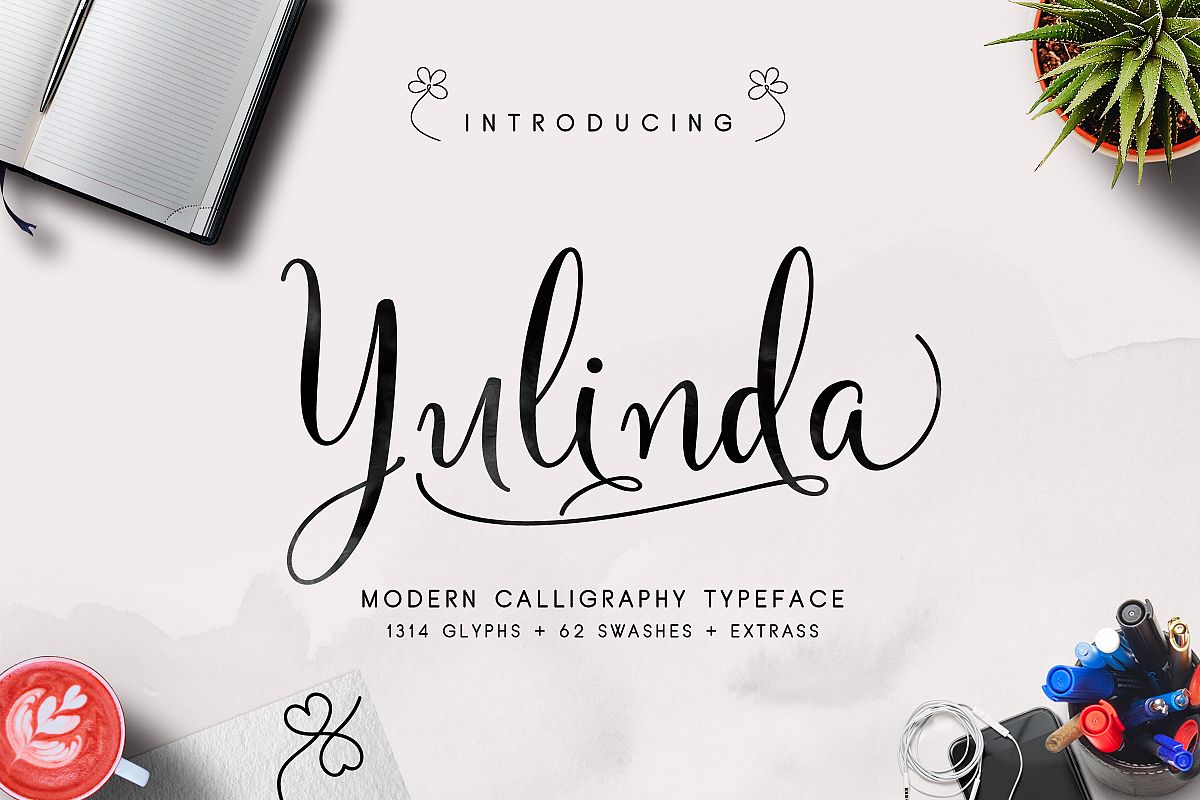
Yulinda Script
Yulinda Script.
Yulinda Swashes.
Yulinda Script a new fresh & modern script with a handmade calligraphy style, decorative characters and a dancing baseline! So beautiful on invitation like greeting cards, branding materials, business cards, quotes, posters, and more!! Yulinda Script come with 1314 glyphs. The alternative characters were divided into several Open Type features such as Swash, Stylistic Sets, Stylistic Alternates, Contextual Alternates, and Ligature. The Open Type features can be accessed by using Open Type savvy programs such as Adobe Illustrator, Adobe InDesign, Adobe Photoshop Corel Draw X version, And Microsoft Word. And this Font has given PUA unicode (specially coded fonts).
so that all the alternate characters can easily be accessed in full by a craftsman or designer.
Yulinda Script Features :
- International Languange & Symbols Support
- Punctuation & Number
- PUA Unicode Range
- Standard Ligatures
- Discretionary Ligatures
- Stylistic Alternates
- Stylistic Set 1-26
- Character Variant 1-3
- Contextual Swash